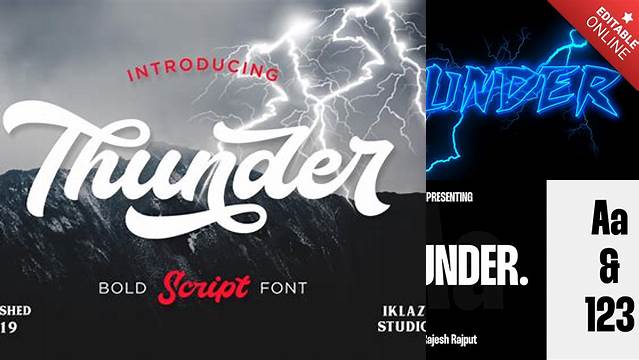
Thunder Font: Free Downloads & Usage Tips
Hey guys! Are you ready to add some electrifying energy to your designs? Then you've come to the right place! In this article, we're diving deep into the world of thunder fonts, exploring their captivating aesthetics, versatility, and where you can snag these awesome typefaces for free. Whether you're a seasoned designer or just starting out, understanding the power of the right font can truly elevate your projects. Let's get ready to rumble with these thunderous fonts!
What Makes a Font a "Thunder Font?"
So, what exactly classifies a font as a thunder font? Well, think of it this way: it's all about evoking the raw energy, power, and dynamism of a thunderstorm. These fonts often feature bold, strong lines, sharp angles, and a sense of movement that mimics the crackling energy of lightning. Imagine the dramatic skies and the electrifying atmosphere – that's the essence of a thunder font! Typically, you will find these fonts being used to convey action, intensity, and excitement. Their unique personality makes them perfect for various design projects, from attention-grabbing headlines to impactful posters and electrifying branding.
Key characteristics of thunder fonts often include:
- Bold and impactful: They command attention and make a statement.
- Sharp angles and edges: Evoking a sense of power and dynamism.
- Dynamic letterforms: Suggesting movement and energy.
- Futuristic or edgy aesthetics: Often used in sci-fi, gaming, and action-oriented designs.
- Strong visual presence: Making them ideal for headlines and titles.
Thunder fonts can come in a variety of styles, from sleek and modern to distressed and grungy. The overall aesthetic, however, remains consistent: a font that conveys power and energy. These fonts are particularly effective when used sparingly, allowing their unique character to shine. Think about movie posters for action films, the logos of high-performance brands, or the graphics for a thrilling video game – these are just a few examples where thunder fonts can truly make a difference. Ultimately, the defining factor is how well the font captures the spirit of a thunderstorm – the raw power, the electrifying energy, and the dramatic presence.
Why Use a Thunder Font?
Okay, so we know what thunder fonts are, but why should you actually use them? The answer is simple: they are fantastic for projects that need a dose of energy and impact. These fonts are designed to grab attention and create a memorable impression. In a world saturated with visual content, a thunder font can be your secret weapon to stand out from the crowd. They’re exceptionally useful when you need to convey a message of strength, excitement, or innovation. Whether you're designing a logo, a website header, or a poster, choosing the right thunder font can instantly elevate your work and inject it with a powerful punch.
Here are just a few scenarios where thunder fonts excel:
- Gaming Graphics: Thunder fonts fit perfectly in the gaming industry, bringing the thrill and dynamism of video games to life. Think about the titles and promotional materials for action, adventure, or sci-fi games – a well-chosen thunder font can immediately set the tone and draw players in.
- Movie Posters: Looking for a way to add impact to a movie poster? A thunder font can communicate the intensity and excitement of action, thriller, or sci-fi films, enticing audiences and building anticipation.
- Sports and Fitness Branding: In the world of sports and fitness, strength, energy, and determination are key. Using a thunder font in your branding can effectively communicate these qualities, resonating with athletes and fitness enthusiasts.
- Technology and Innovation: Thunder fonts can also work wonders for technology brands. Their modern and edgy aesthetics align with the fast-paced, innovative nature of the tech industry, helping to create a cutting-edge image.
- Music and Events: For music events, concerts, and festivals, a thunder font can capture the energy and excitement of the live experience, making promotional materials more engaging and memorable.
In essence, thunder fonts are your go-to choice whenever you need to infuse your design with a sense of power, energy, and impact. They help you make a statement and leave a lasting impression on your audience. Remember, a font is more than just letters; it's a tool for communication and expression. When used effectively, a thunder font can transform your design from ordinary to extraordinary.
Where to Find Thunder Fonts for Free
Now for the exciting part: where can you actually find these electrifying thunder fonts without breaking the bank? Thankfully, the internet is brimming with resources for free fonts, including some fantastic thunder font options. However, it's crucial to be cautious and diligent when downloading fonts from the internet. Not all sources are created equal, and you want to ensure you're getting high-quality fonts that are safe to use.
Here are some reliable websites where you can find thunder fonts for free:
- Google Fonts: This is a fantastic place to start. Google Fonts offers a vast library of free, open-source fonts that are perfect for both personal and commercial use. While you might not find a font explicitly labeled as "thunder," you can certainly discover fonts with the bold, impactful, and edgy characteristics of a thunder font. Look for fonts in the sans-serif or display categories, and experiment with different styles to find the perfect fit for your project.